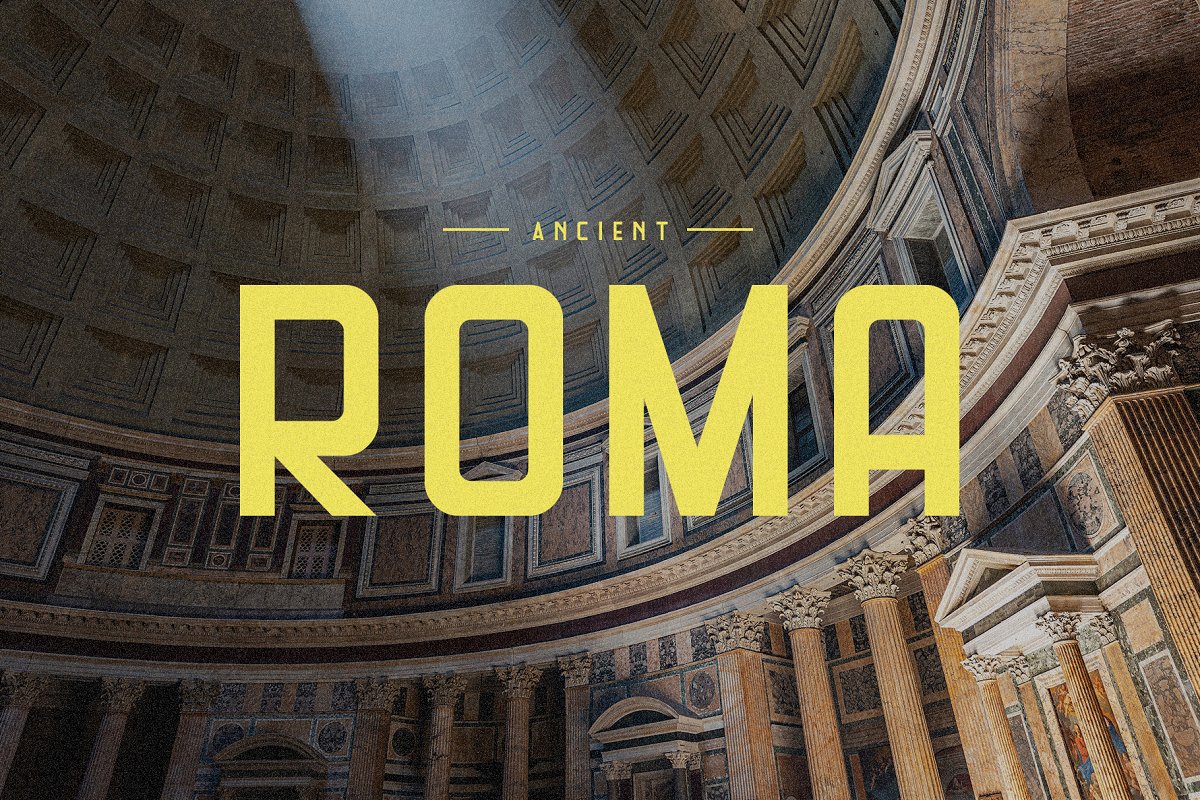
B Cavalcanti Italian Style Font Family Free Download
About the B Cavalcanti Italian Style Font
10B Cavalcanti is rooted in simple, legible typography seen on signage across all of Italy, With alternates of many of the characters you can find a style that will fit your project, Includes:TTF, TTF, WOFF, font filesUppercase, Punctuation, & Numerals, Regular & Bold WeightsMade with love in Salt Lake City, Utah by Tenbury Type©